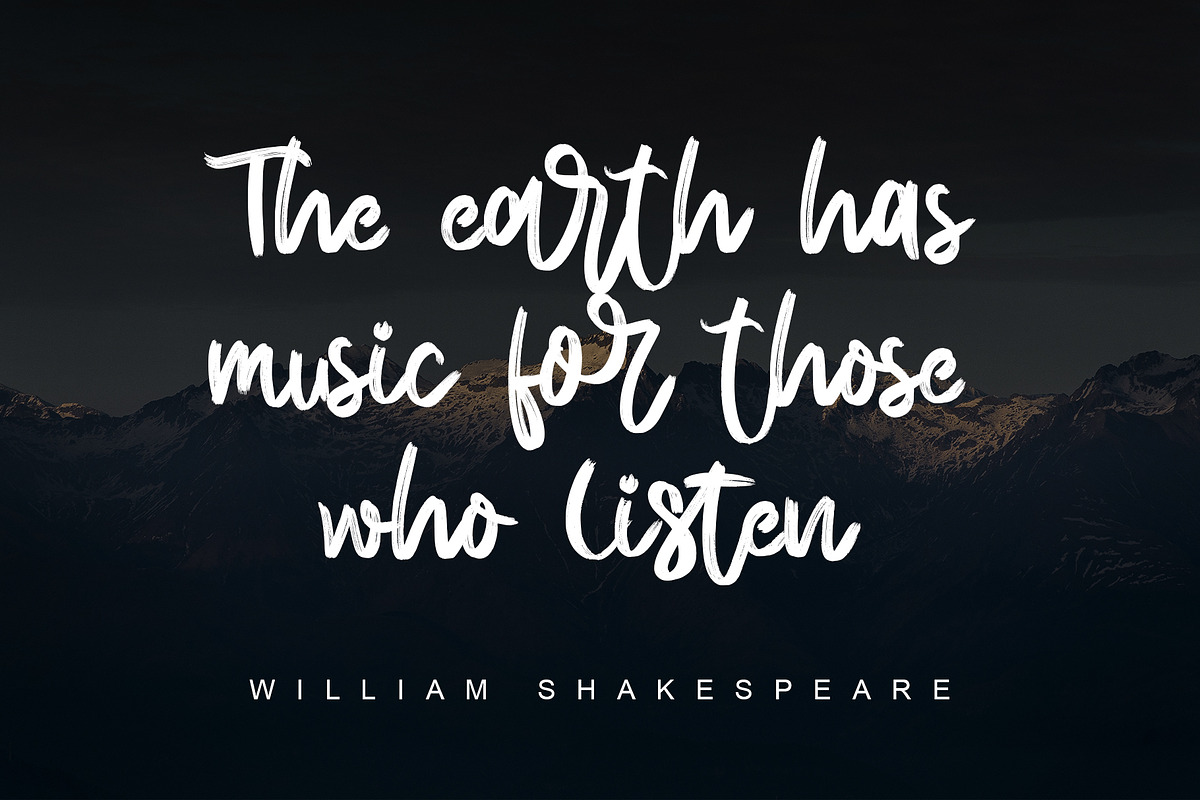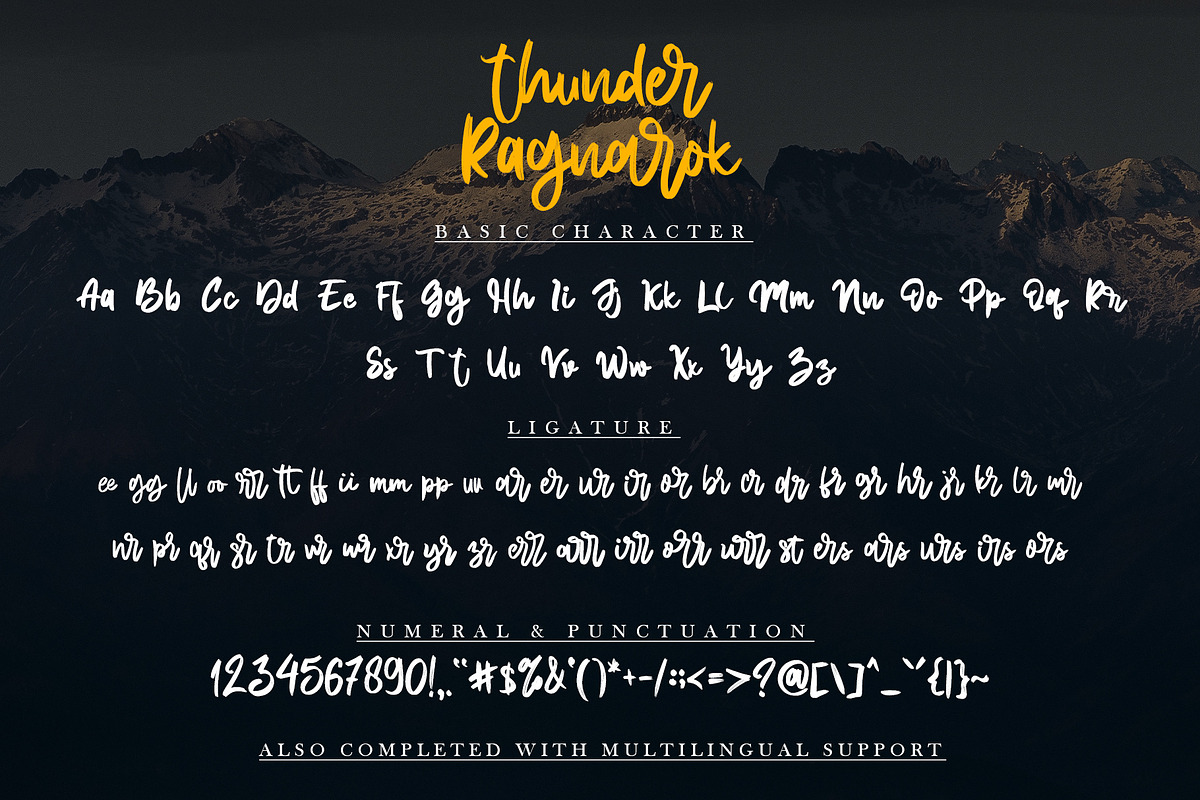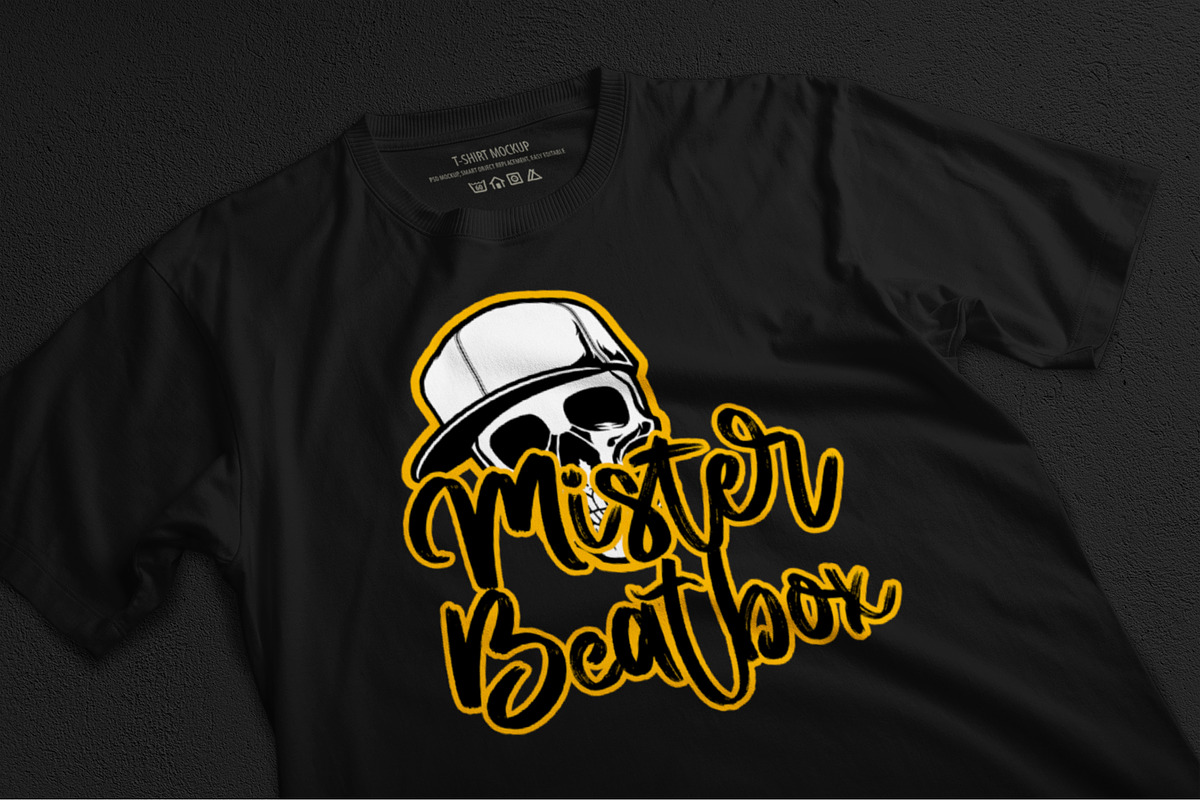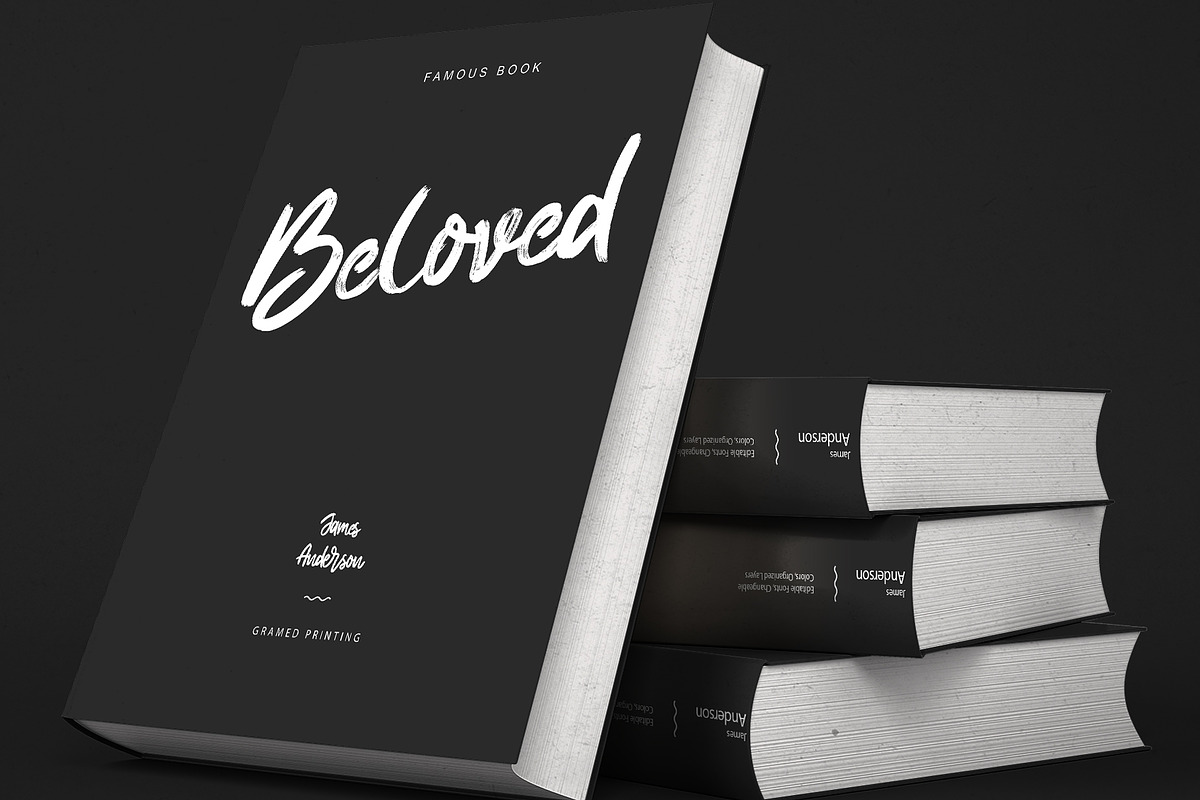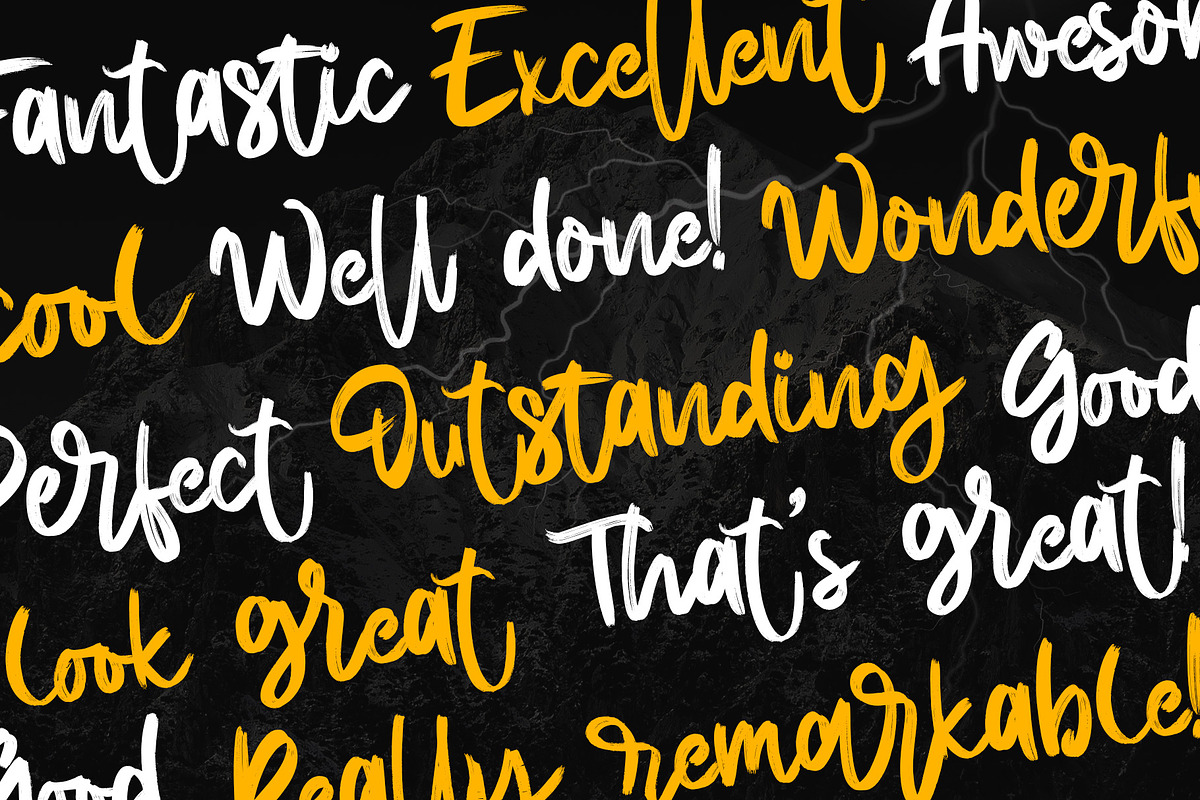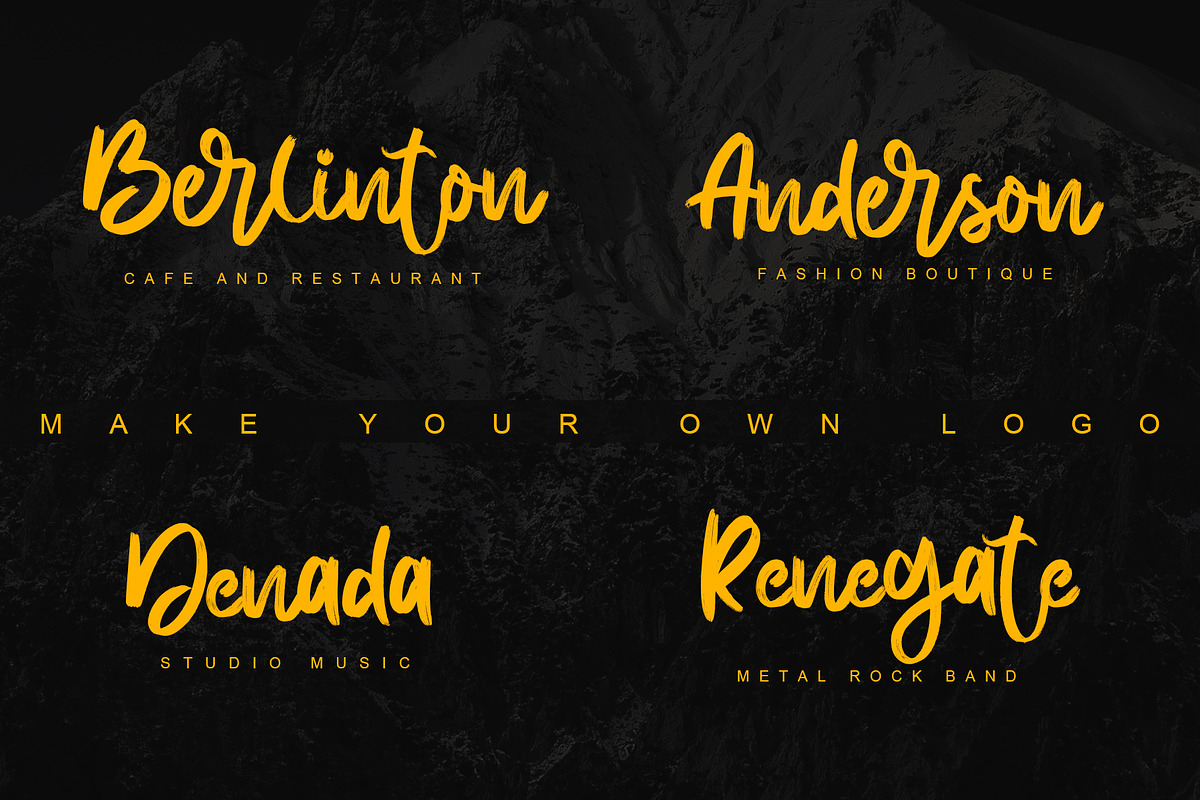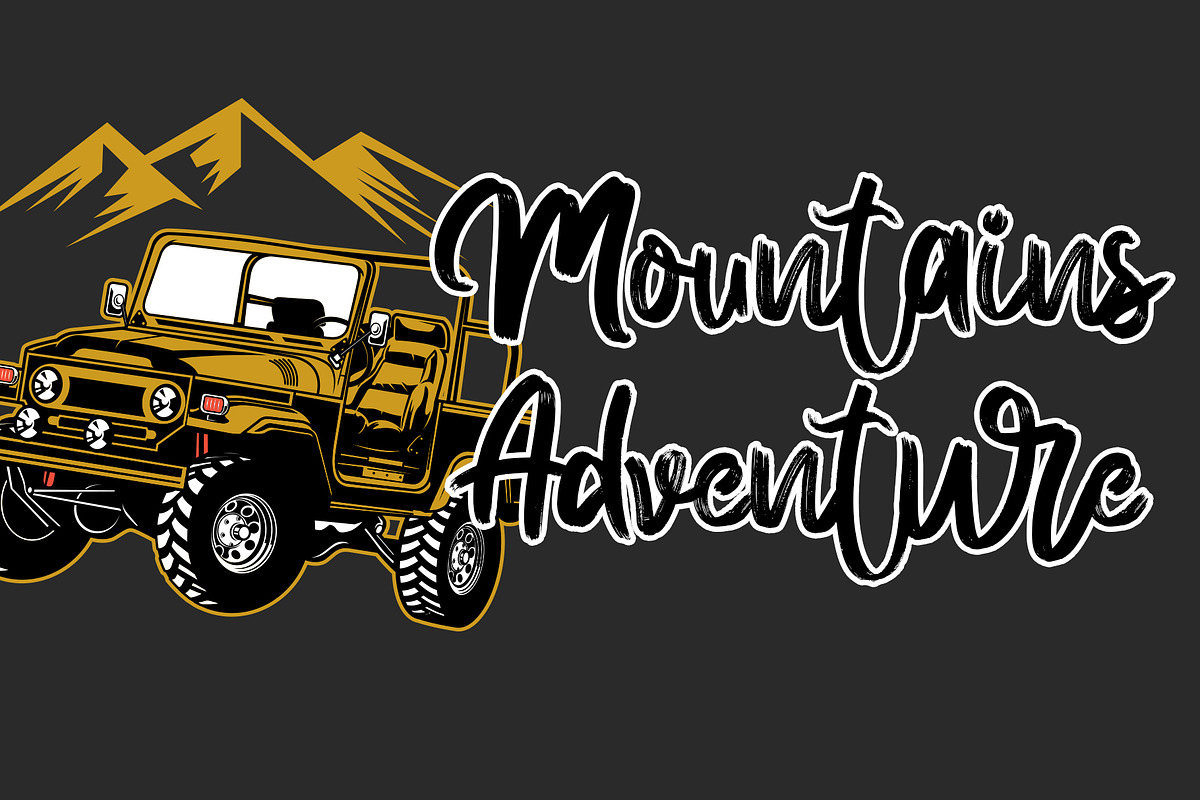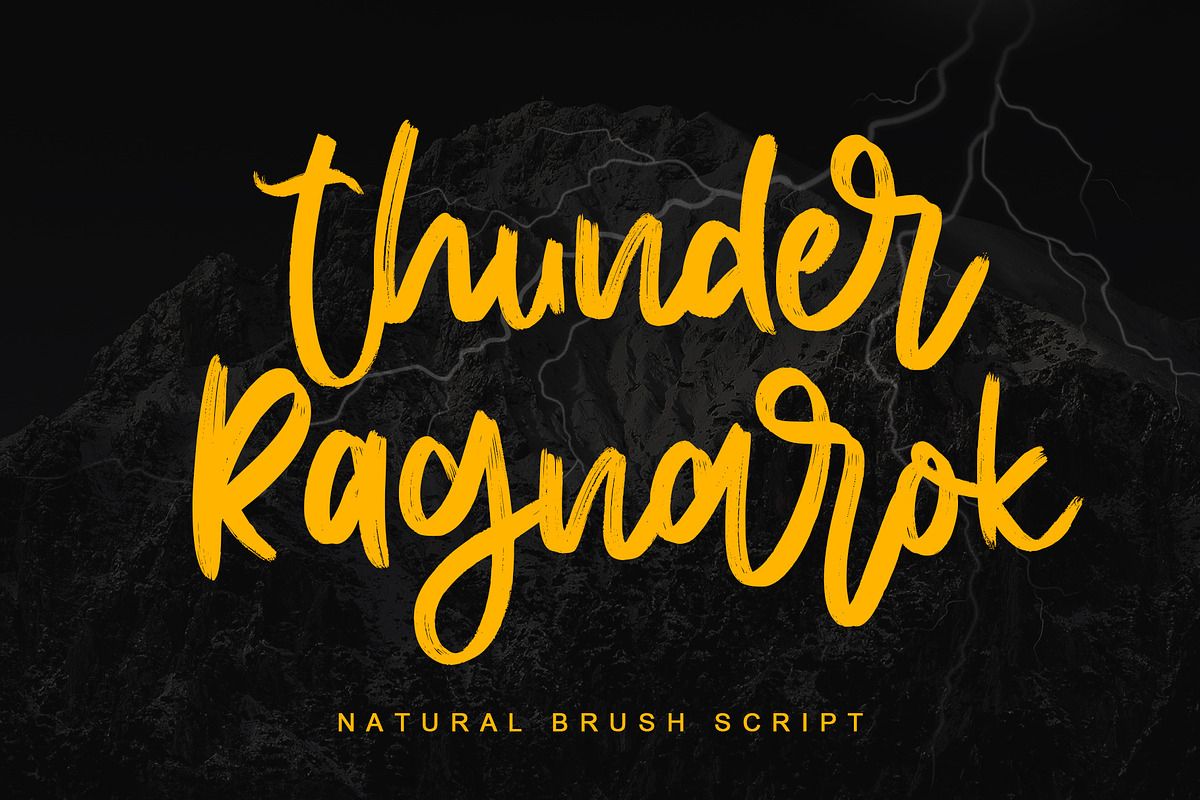
Thunder Ragnarok
Thunder Ragnarok is a stylish modern brush script. It has a unique, striking look that can be used to make any design stand out. It’s perfect for logos, stationery, quotes, promotion, poster, and much more! This font is PUA encoded which means you can access all of the glyphs.
- Support multilingual; ä ö ü Ä Ö Ü ß ¿ ¡
- This font is PUA encoded which means you can access all of the playful glyphs and swashes with ease! It also features a wealth of special features including alternate glyphs and ligatures. To stay up to date for my latest job, follow me and let’s be friends because there will be many promos.